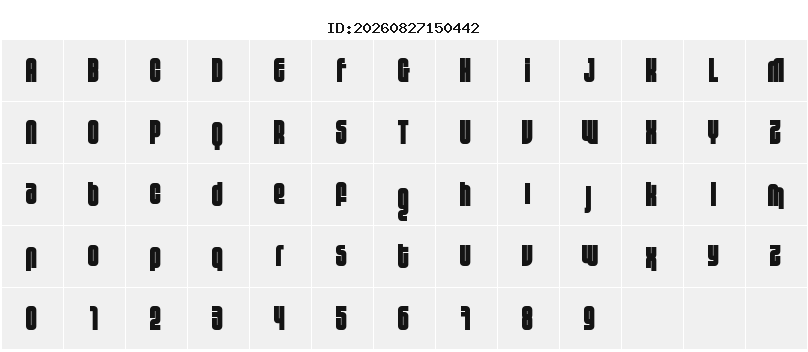
About 10.12 .ttf
10.12 .ttf is a modern, elegant sans-serif font designed for ultimate readability and visual harmony. Perfect for branding, headlines, web design, and print materials.